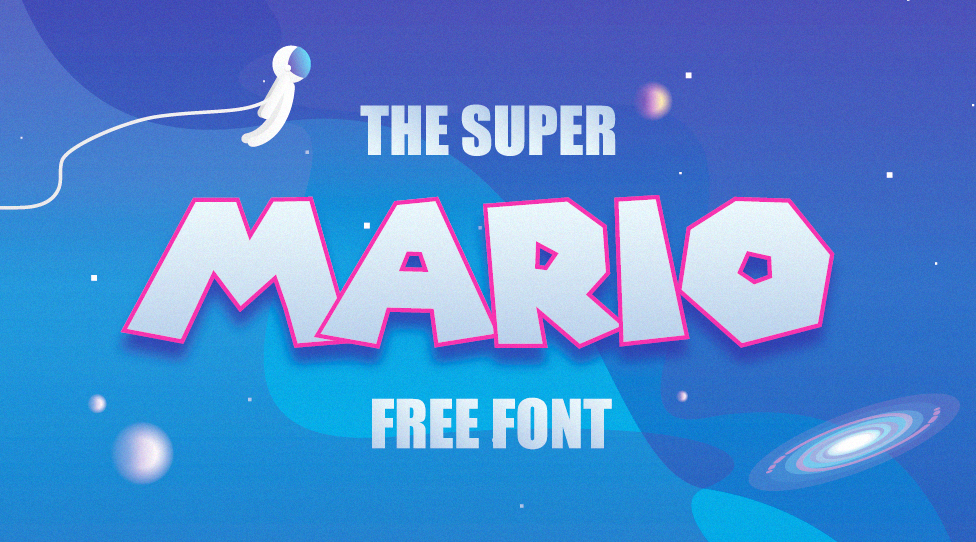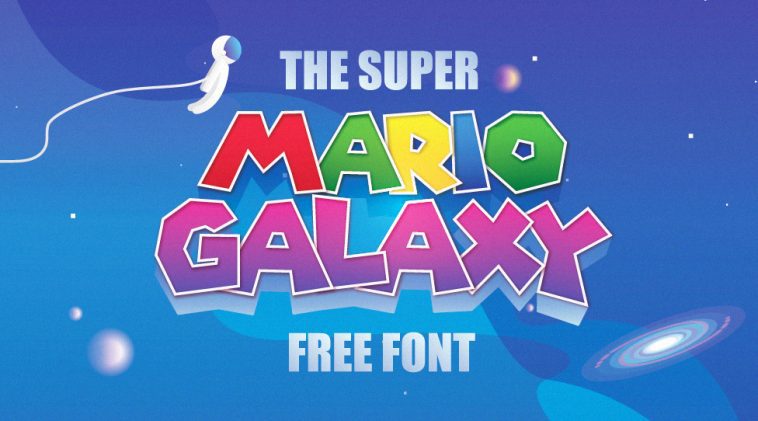
The most famous game character of all times “Super Mario” has reached a new level of success with recently released Super Mario Bros Movie and the sequel that is about to come out – the Super Mario Galaxy Movie. No wonder that you might be looking for the popular Super Mario font that is used as a title logo. Good news is that there are no lack of fans out there that decided to turn this title logo in to a useable font that is remarkably similar to the original but with some minor differences. I have one such font available right here.
Free Super Mario Galaxy Font – Super Mario Font
- Designer: Ali Hamidi designed the Super Mario font replica and made it available as a free download. Like I mentioned above, the font is really similar to the original but not the same, some letters are shaped differently. However, what matters is that the font keeps the iconic bold look with irregular sharp edges.